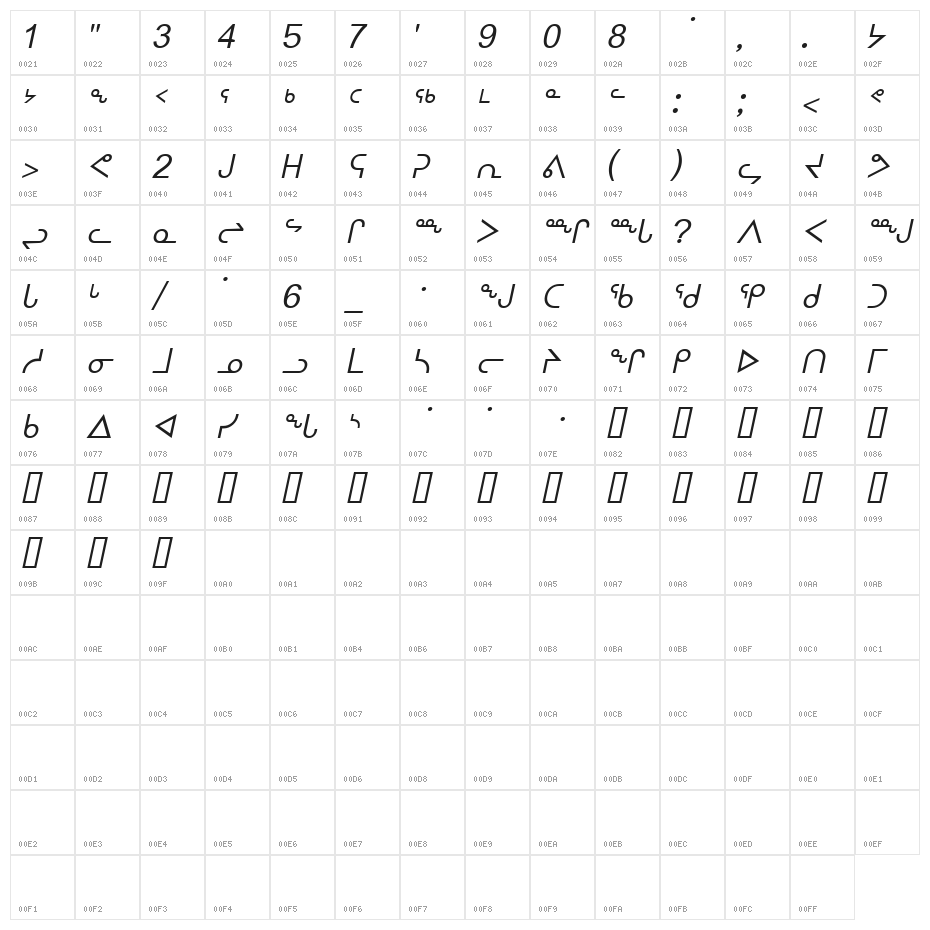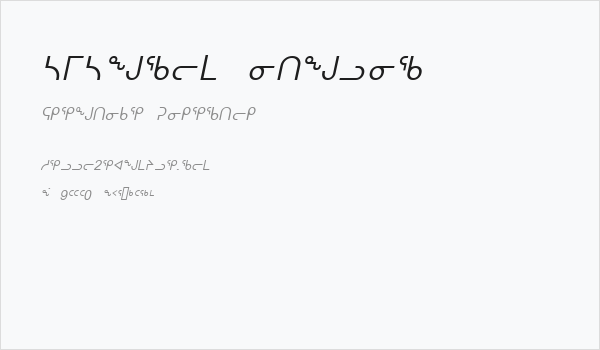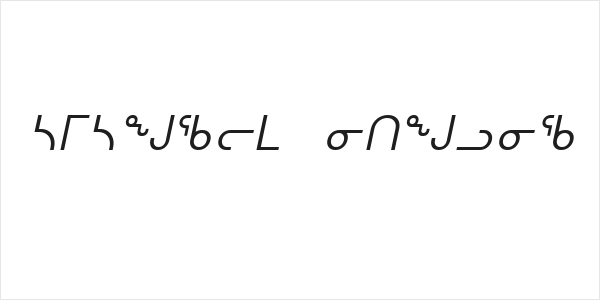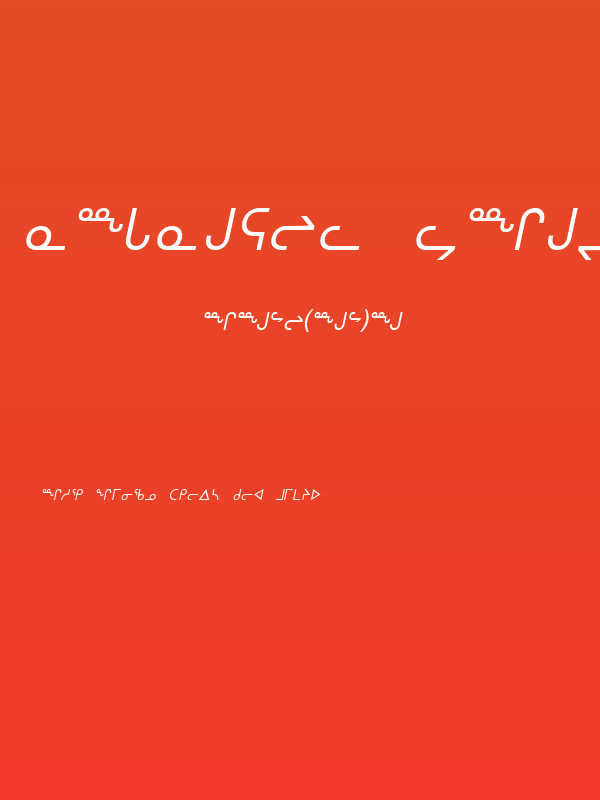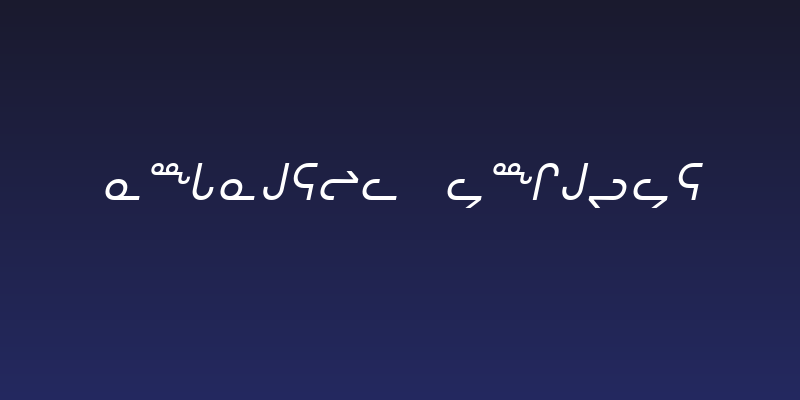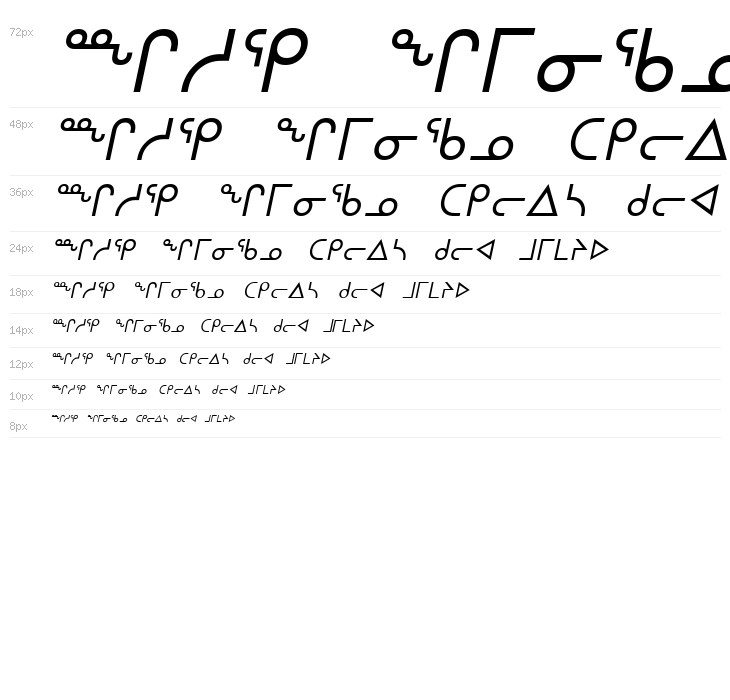
nunacom italic Font
nunacom italic Description
This font features a unique and modern design with italicized characters that exhibit a smooth, flowing style. The characters are crafted with a slight slant, enhancing their dynamic appearance. The font maintains a consistent stroke width, providing a clean and uniform look. Its distinctiveness is further highlighted by the rounded edges and subtle curves, which add a touch of elegance. The font includes a comprehensive set of characters, including numbers and special symbols, making it versatile for various applications. Its contemporary style is suitable for projects that require a modern and sophisticated touch.
| Use Case | Headlines, Logos, Digital Media |
| Proposed Projects | Ideal for branding, advertising, digital media, and editorial design projects that require a modern and elegant touch. |